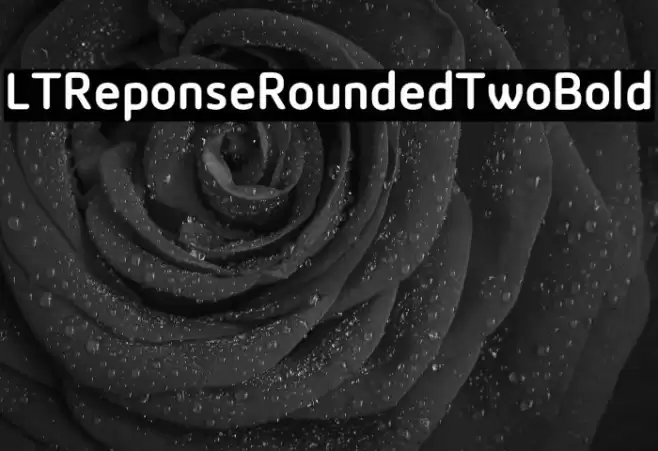
LTReponseRoundedTwoBold Font
LTReponseRoundedTwoBold Description
This font features a modern, rounded sans-serif style with a bold weight. The characters are smooth and uniform, with consistent stroke thickness that gives a clean and approachable appearance. The rounded edges soften the overall look, making it friendly and versatile. The numerals and special characters maintain the same rounded style, ensuring cohesion across all elements. This font is well-suited for digital interfaces, branding, and advertising, where clarity and a contemporary feel are essential.
A bold, rounded sans-serif font with a modern and friendly appearance from Uncategorized fonts.
- Proposed Projects: Ideal for branding, digital interfaces, advertising, and signage.
- Use Case: Headlines, Logos, Digital Interfaces